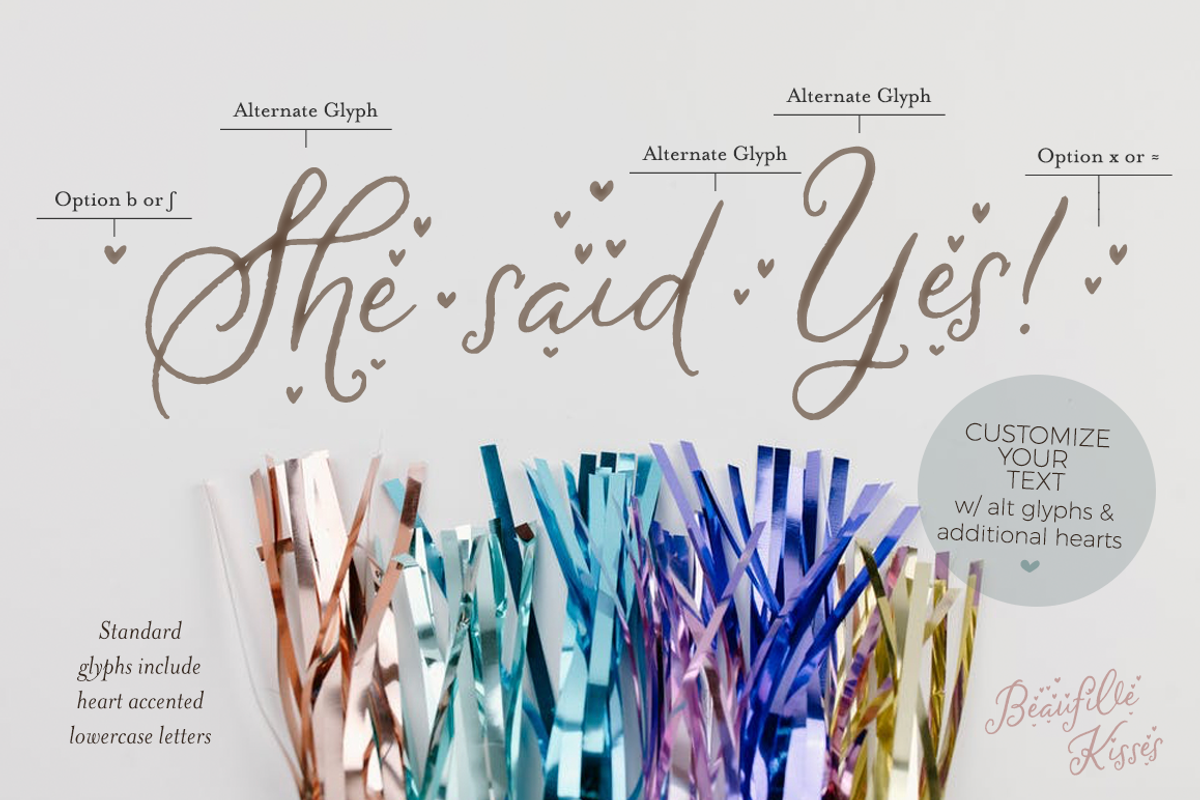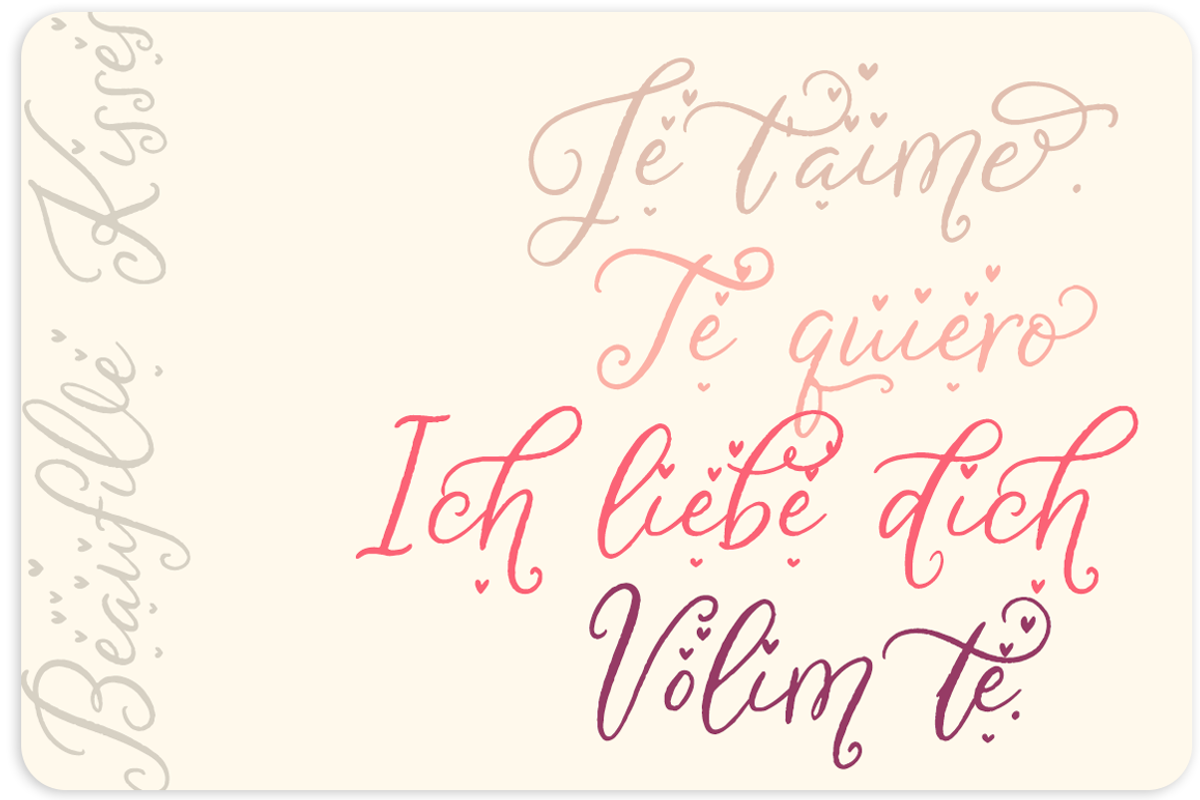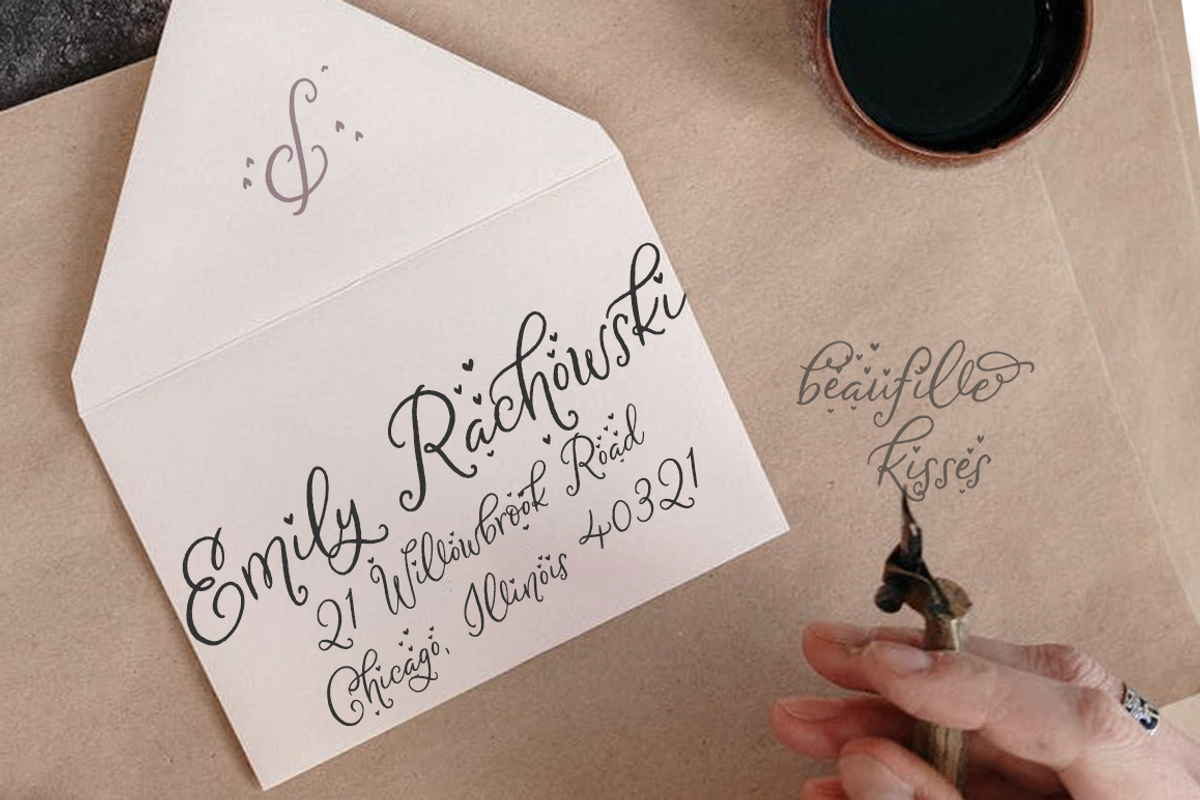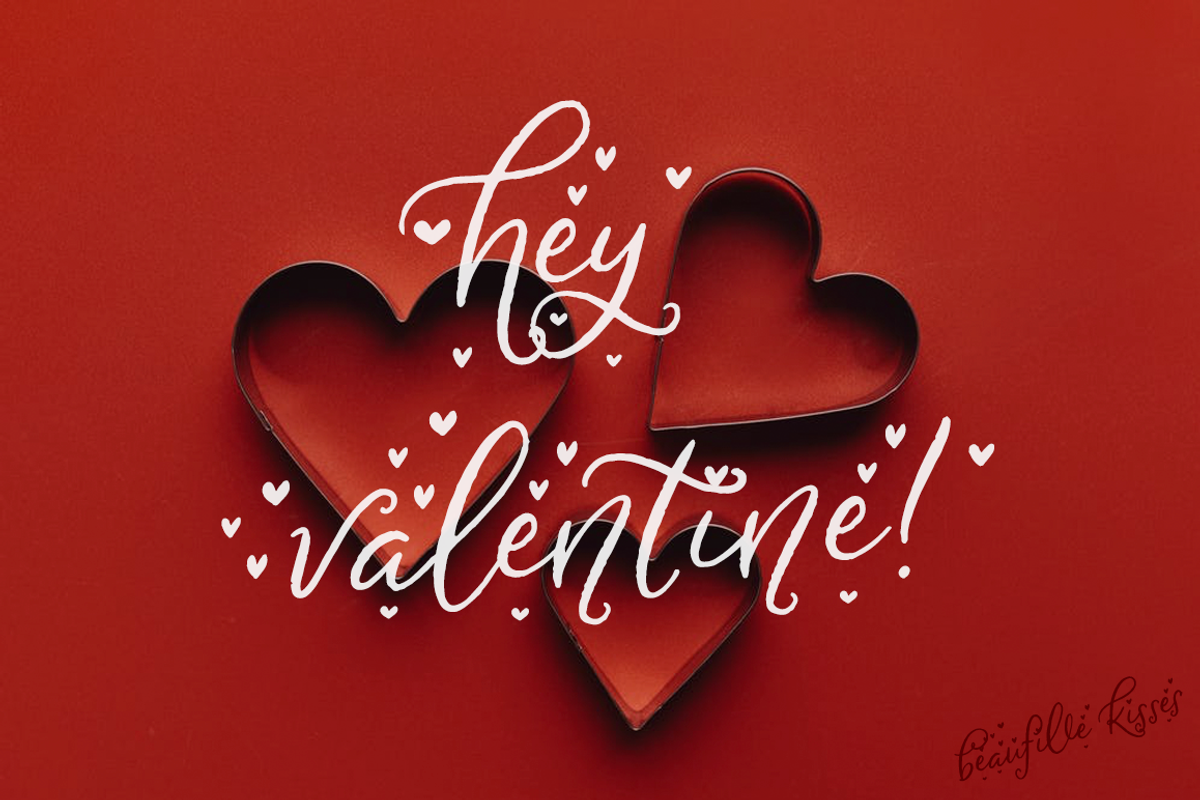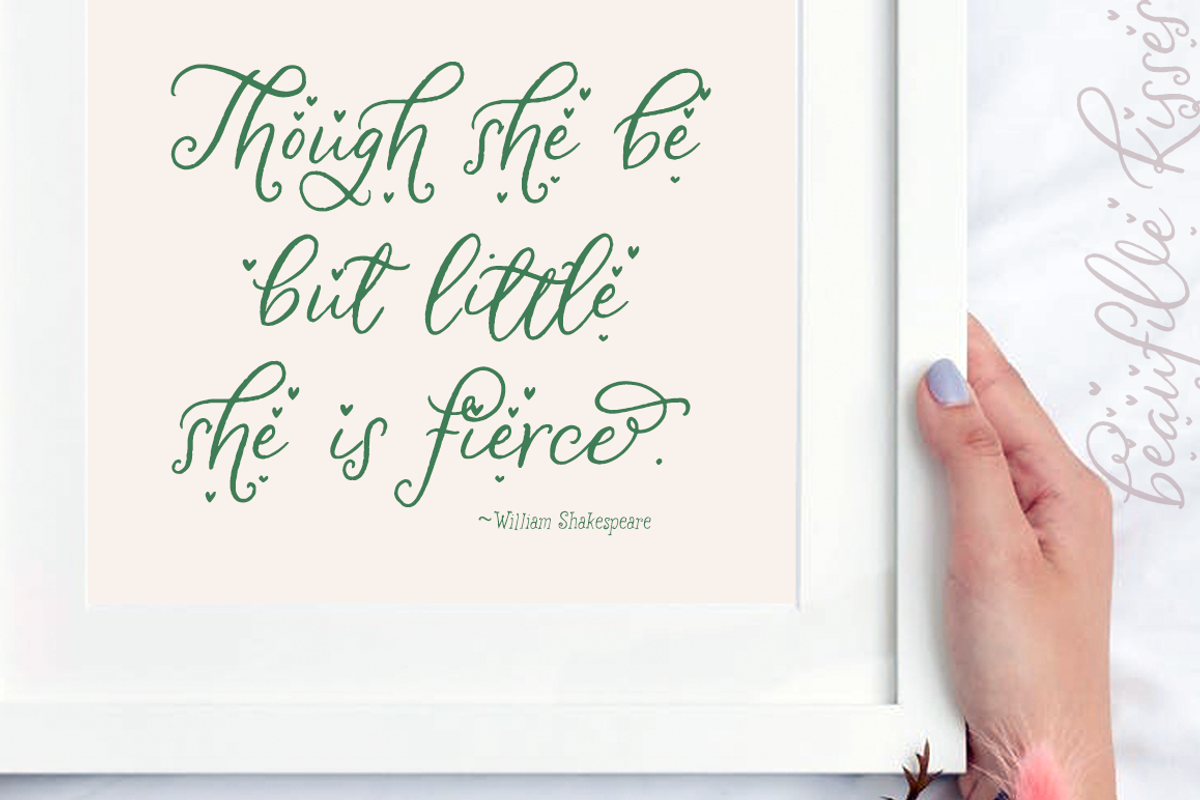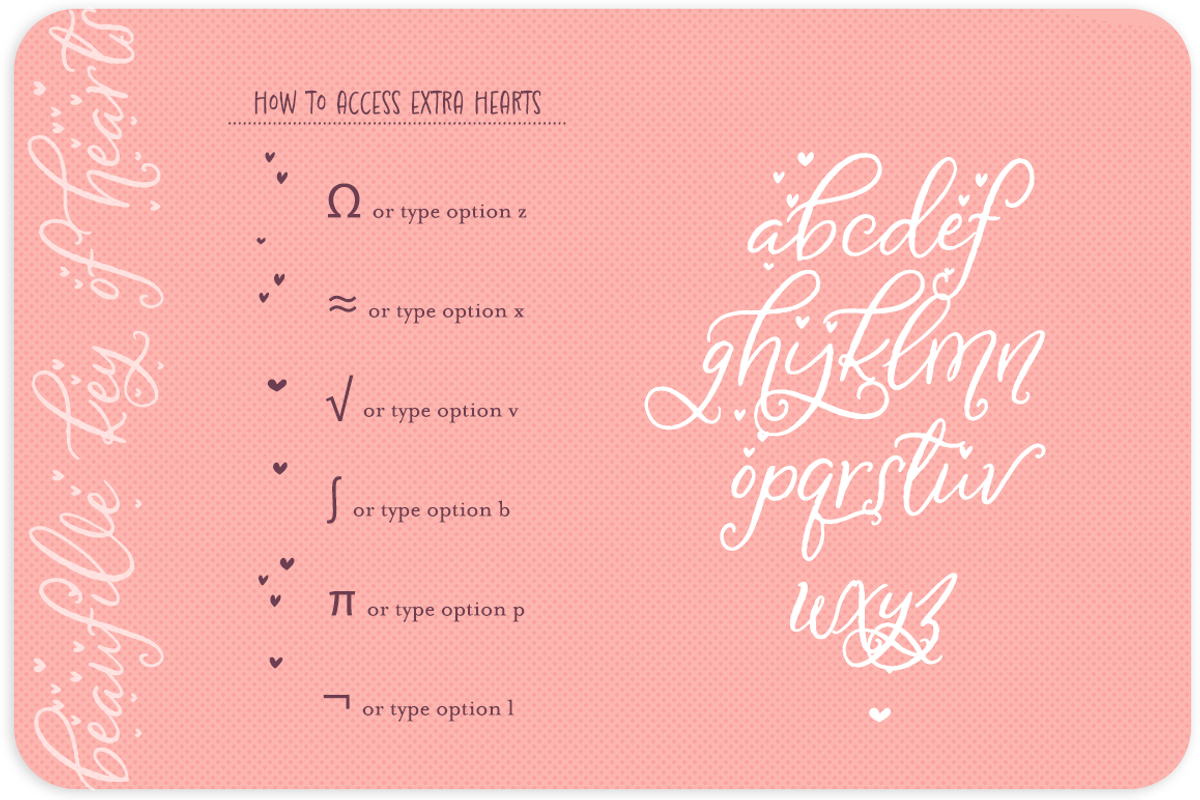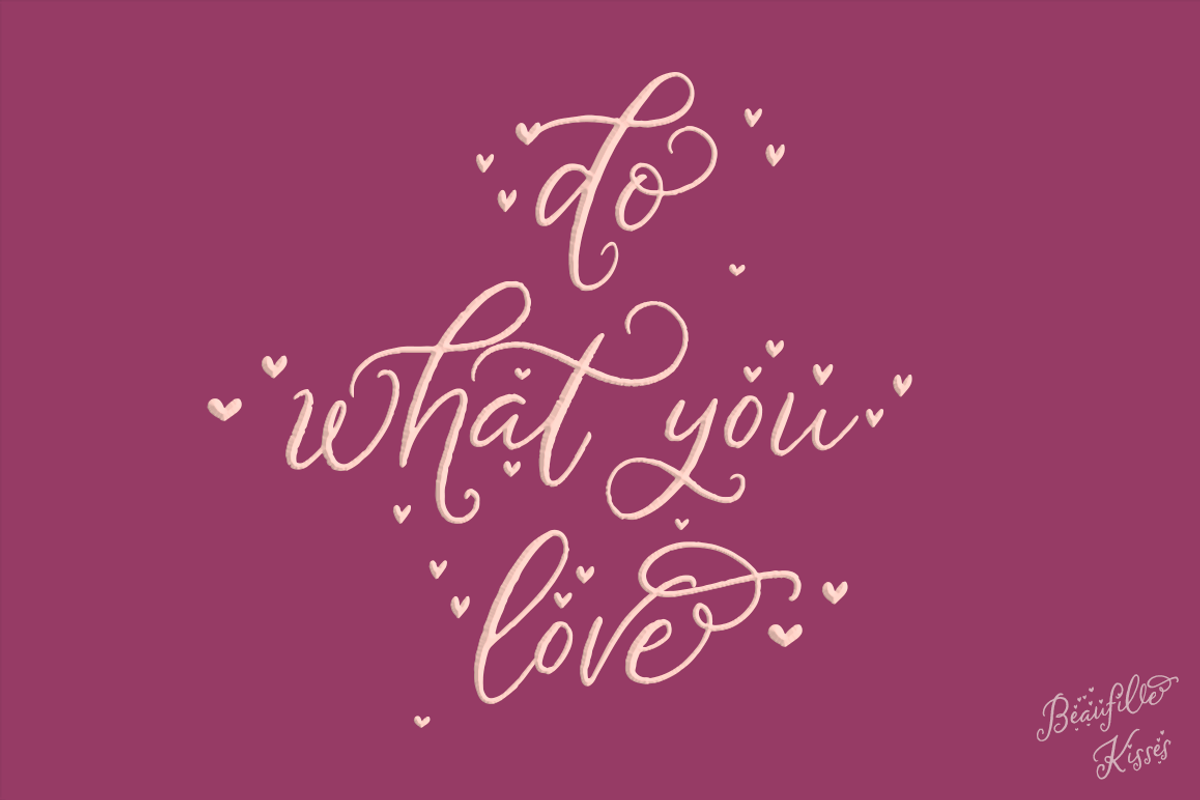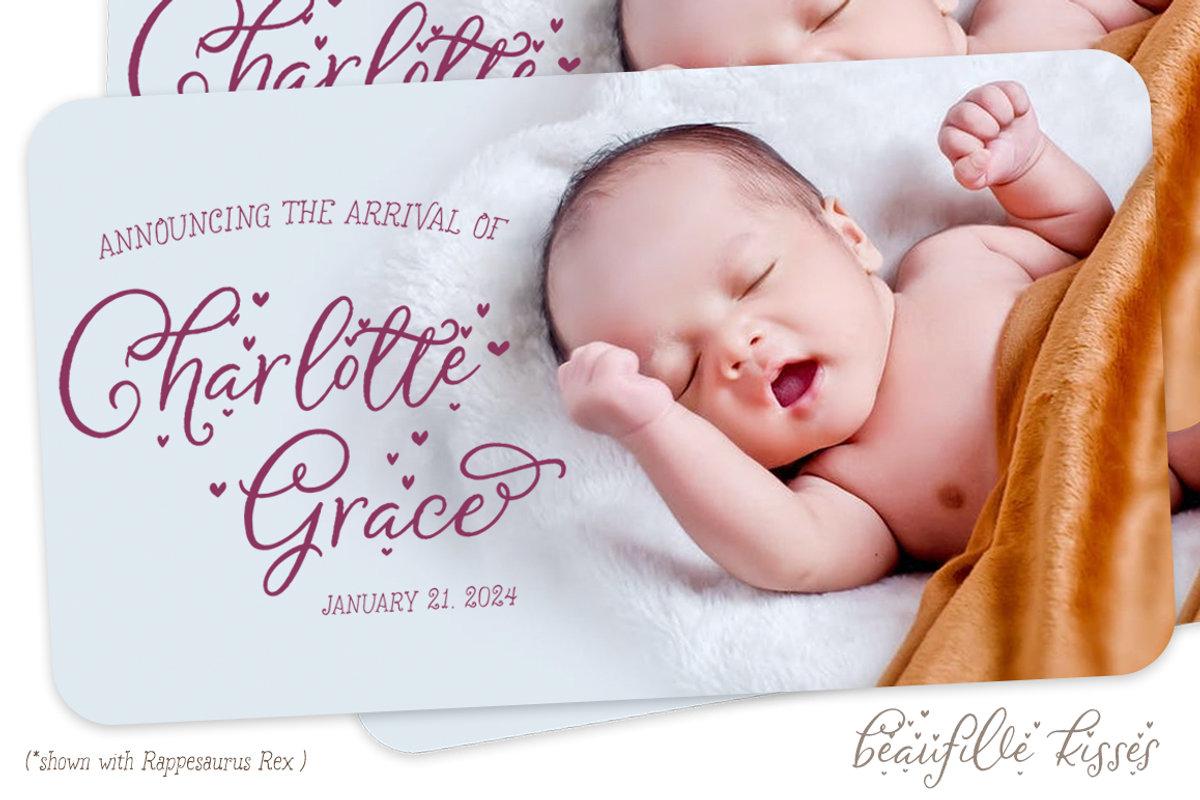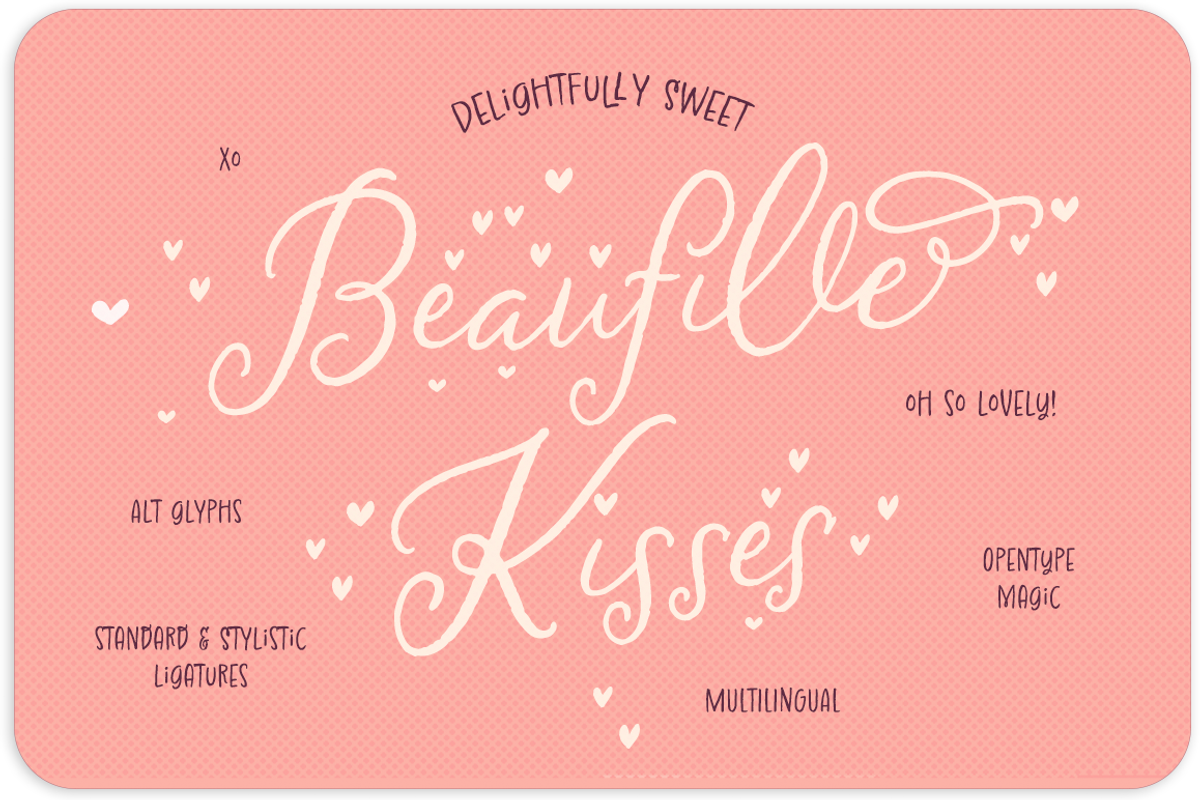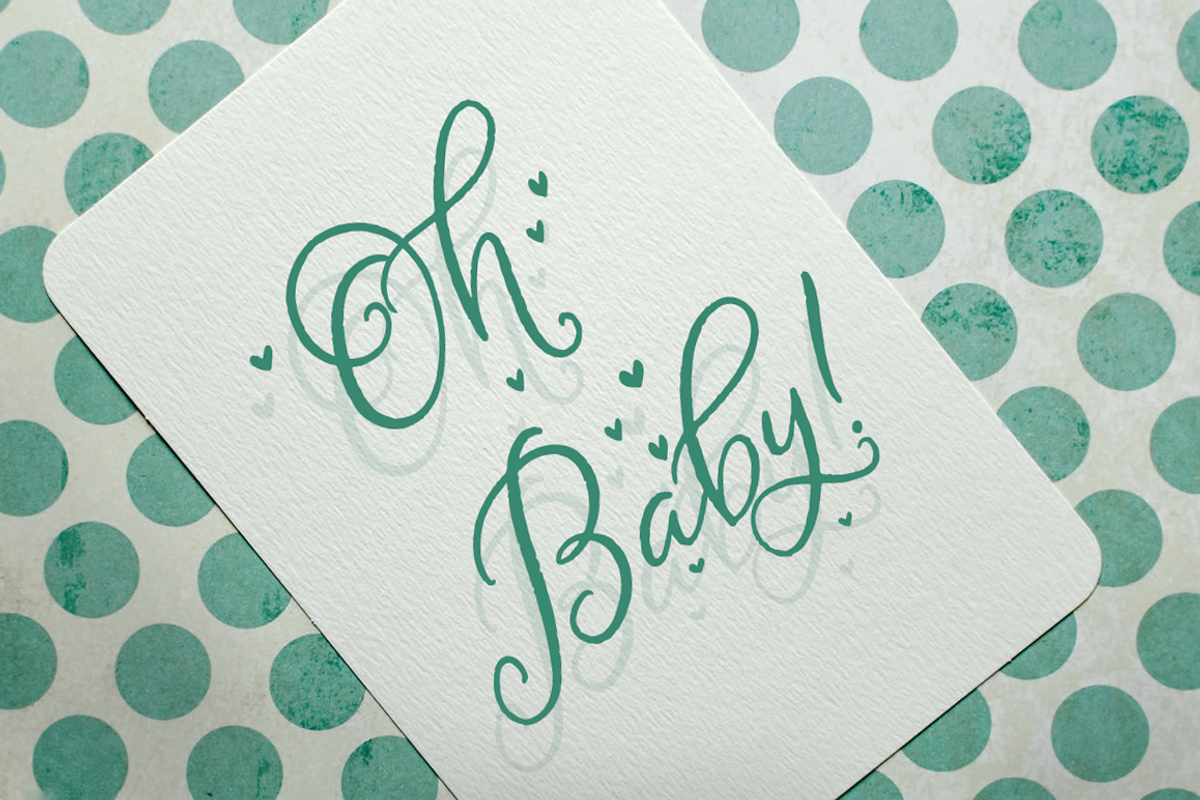
Beaufille Kisses
Need a little extra love? This heart sprinkled version of Beaufille Script is just what the doctor ordered. For a version without hearts, check out : Beaufille Script https://crmrkt.com/XDvlb8
- OpenType
- Standard ligatures
- Stylistic ligatures
- Alternate Glyphs
- Bonus Hearts
- Multilingual Latin based language support